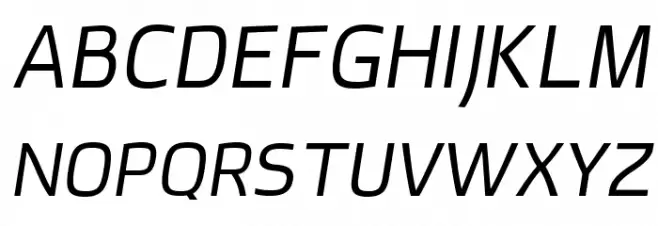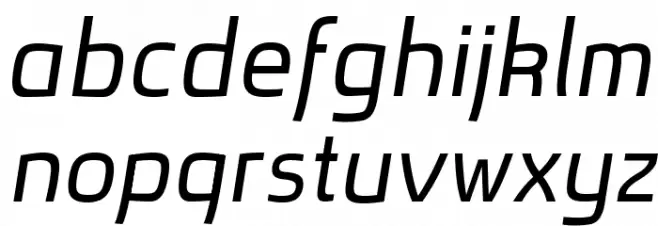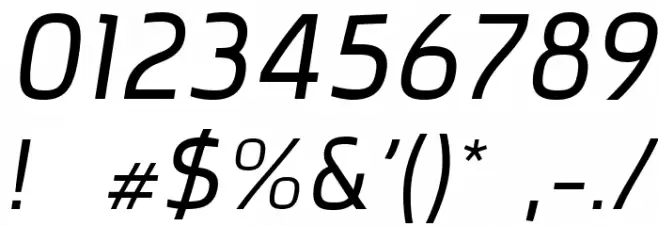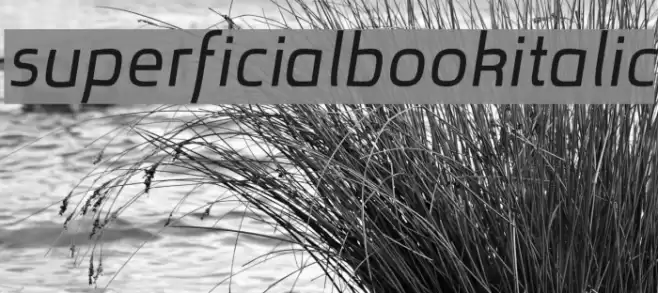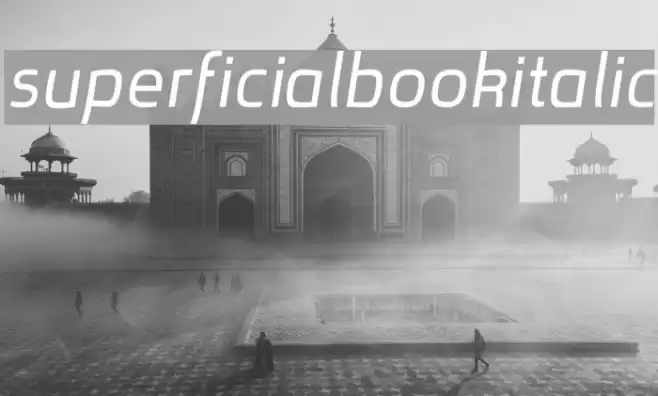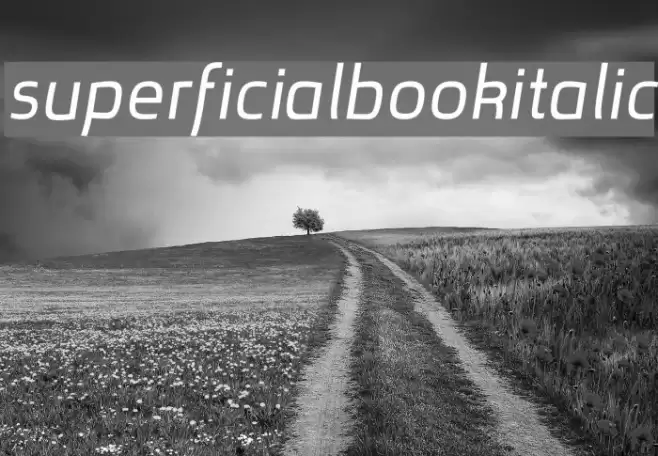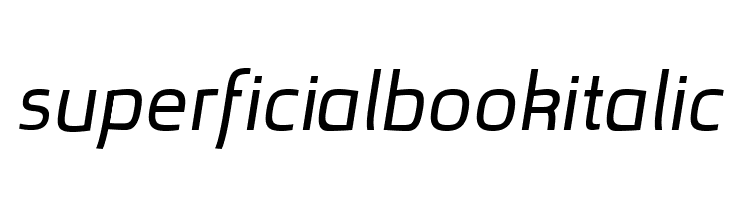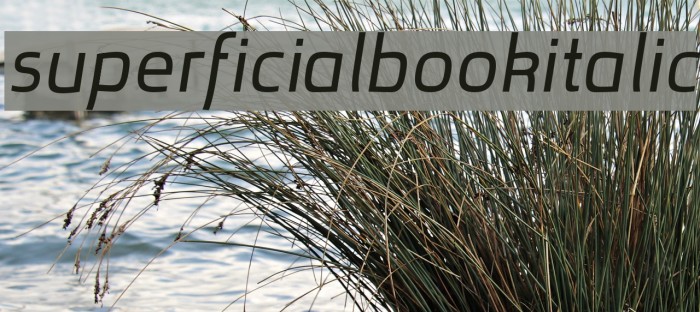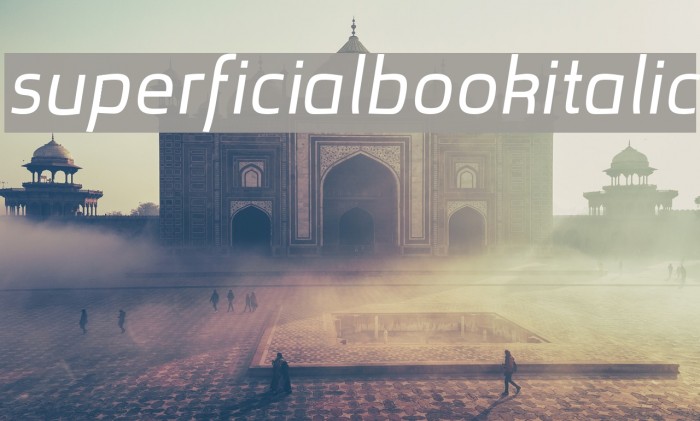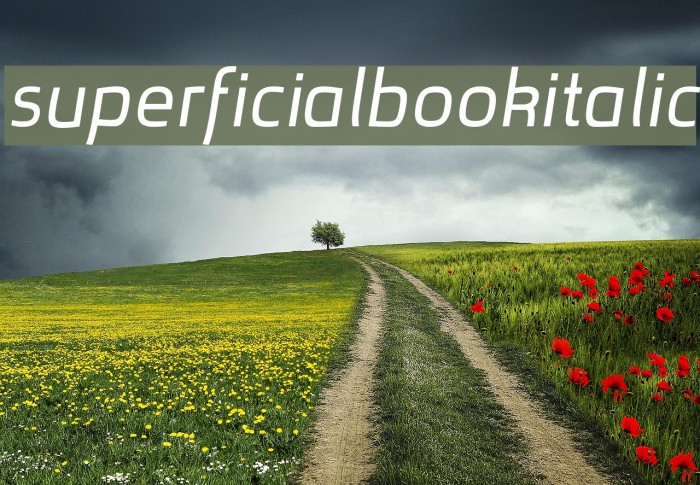
superficialbookitalic
This font features a sleek, modern design with a slight italic slant, giving it a dynamic and forward-moving appearance. The characters are clean and sans-serif, providing a contemporary look that is both professional and approachable. The uppercase and lowercase letters maintain a consistent style, with rounded edges and a uniform stroke width that enhances readability. The numerals and special characters are designed to match the overall aesthetic, ensuring a cohesive look across all text elements. The font's design is versatile, making it suitable for a wide range of applications.
A modern, italic sans-serif font with a sleek and dynamic appearance.
- Proposed Projects: Ideal for branding, advertising, digital content, and editorial design.